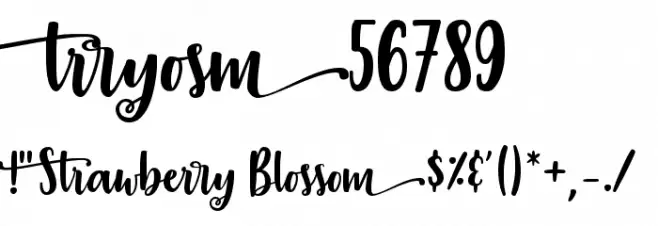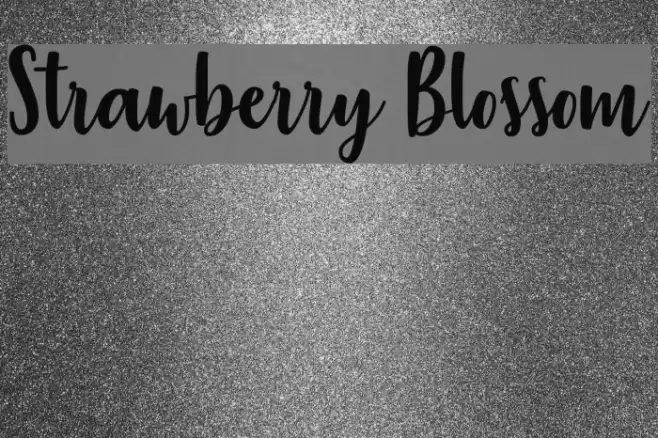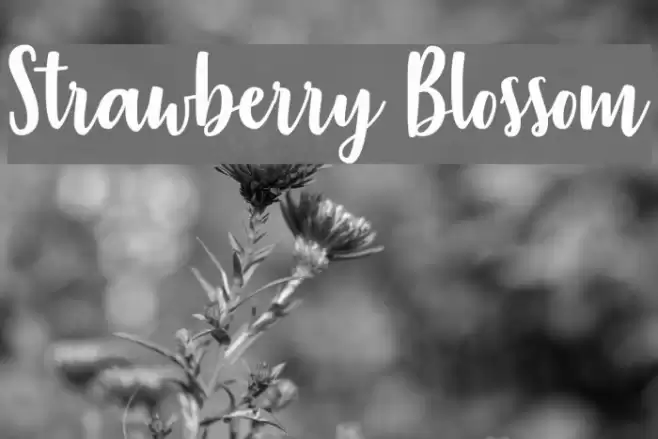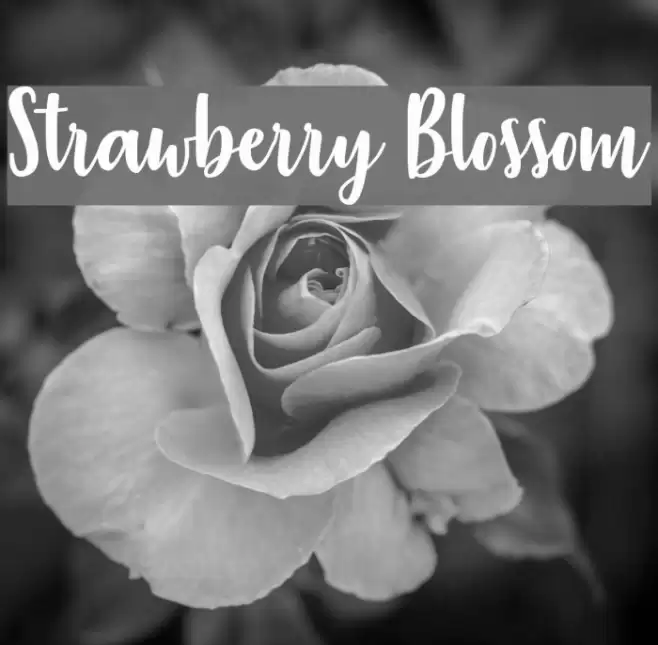
Strawberry Blossom Font
Strawberry Blossom Description
This font features a playful and elegant script style, characterized by its flowing and connected letterforms. The uppercase letters are bold and slightly condensed, while the lowercase letters exhibit a more fluid and cursive appearance. The font includes a variety of special characters and numerals, maintaining a consistent style throughout. Its design is reminiscent of handwritten calligraphy, with a modern twist that adds a touch of sophistication. The strokes are smooth and well-balanced, making it suitable for a range of creative projects.
A playful and elegant script font with flowing, connected letterforms from Uncategorized fonts.
• Proposed Projects: Ideal for wedding invitations, greeting cards, branding, and social media graphics.
• Width: Condensed
• Character Spacing: Normal
• Contrast: Medium
• Overall Style: Modern
• Use Case: Logos, Headlines, Decorative text